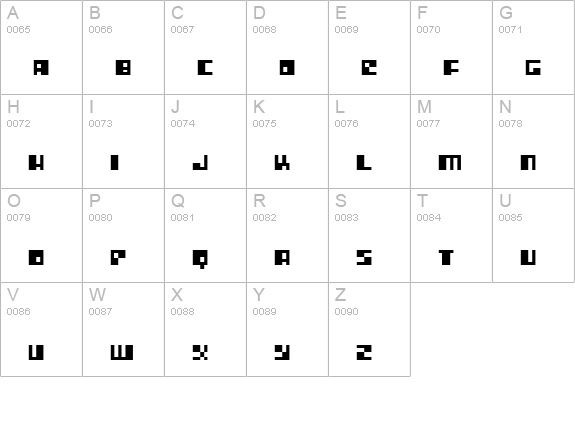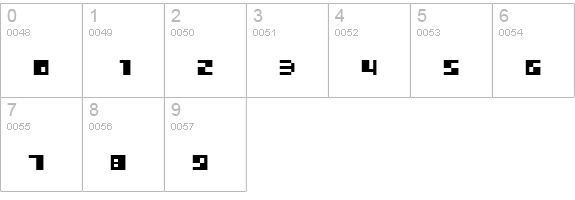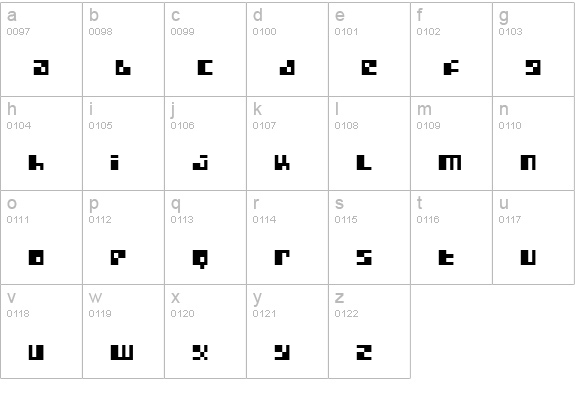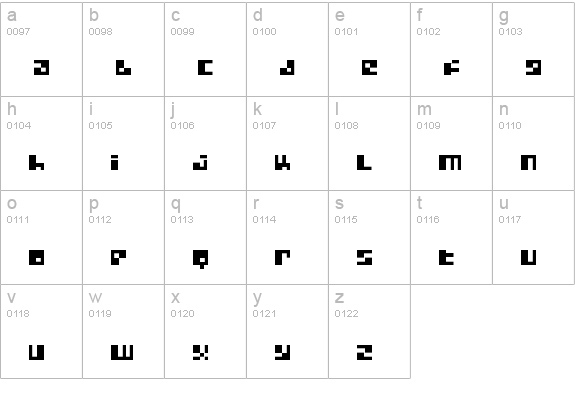
Metroplex Font Details
Introducing Metroplex font - a sleek and modern typeface that exudes sophistication and style. With its clean lines and sharp edges, Metroplex is perfect for creating eye-catching designs that demand attention. This versatile font is suitable for a wide range of projects, from branding to editorial design. But here's the best part - Metroplex is completely free to download at FontsMarket.com. Yes, you read that right! You can easily access this stunning font and elevate your creative projects without breaking the bank. So why wait? Get your hands on Metroplex today and take your designs to the next level!